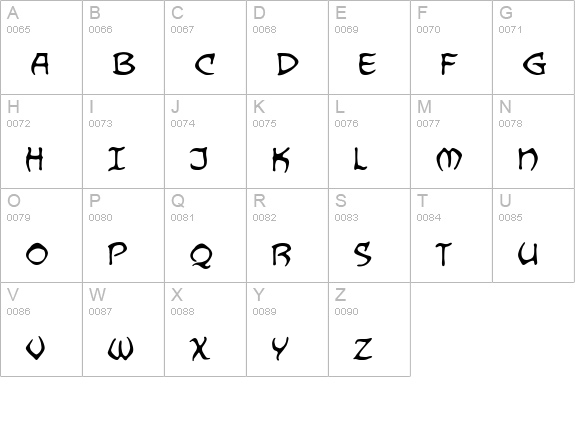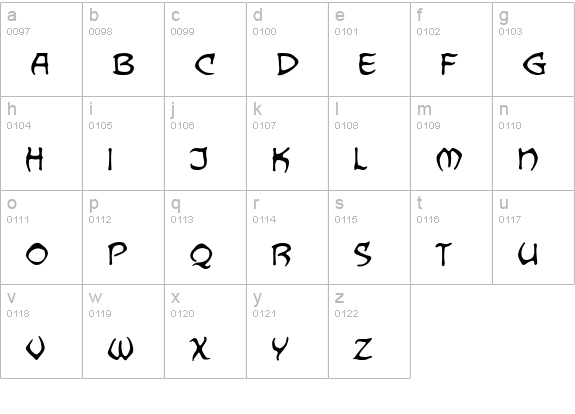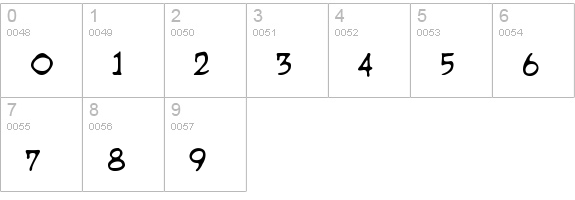
Dragonbones BB font is a stunning display font that exudes power and strength with its bold and intricate design. Each letter is meticulously crafted to resemble dragon bones, making it perfect for projects that require a touch of mystique and fantasy. This unique font is versatile and can be used for various purposes, from branding to posters to merchandise. The best part is, Dragonbones BB font is completely free to download at FontsMarket.com. So, whether you're a designer looking to add a touch of magic to your creations or a hobbyist wanting to spice up your projects, this font is the perfect choice. Download it today and let your creativity soar with Dragonbones BB font.